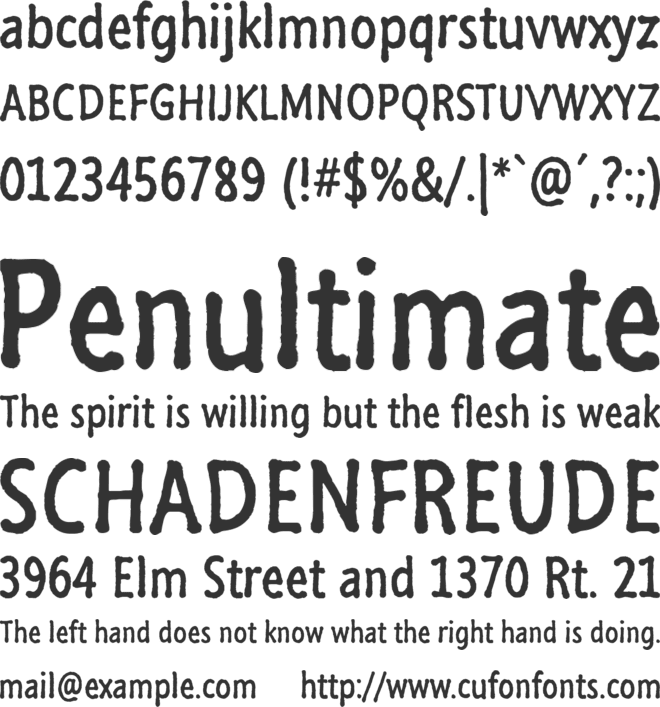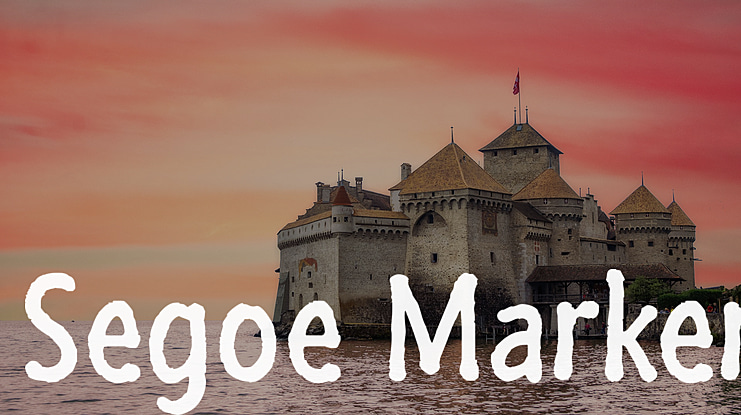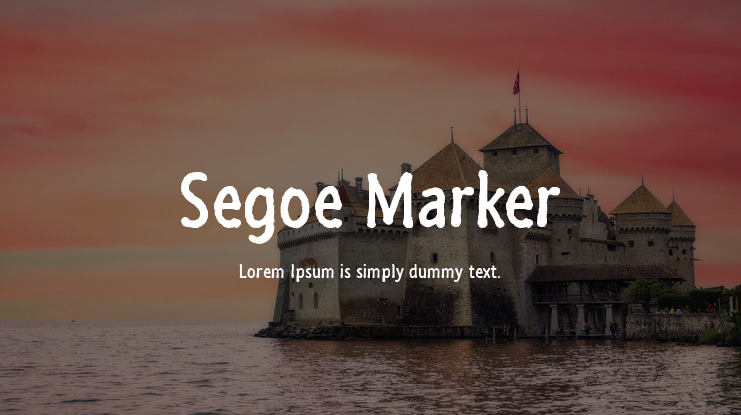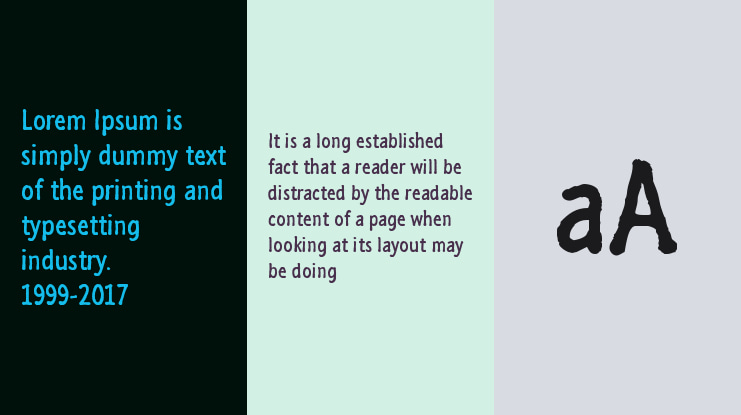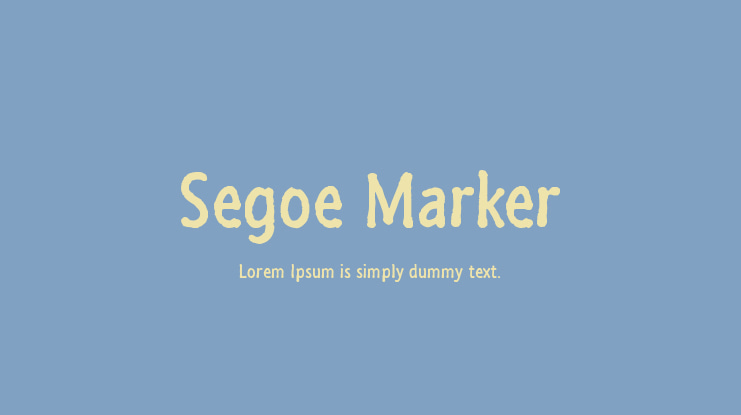
Segoe Marker is a print style handwriting font designed for Microsoft Corporation. This fun design mimics a medium sized marker with a bit of a jagged edge. This font has 252 glyphs supporting Latin writing systems.